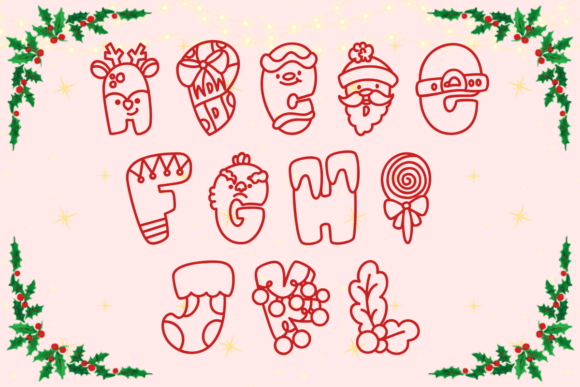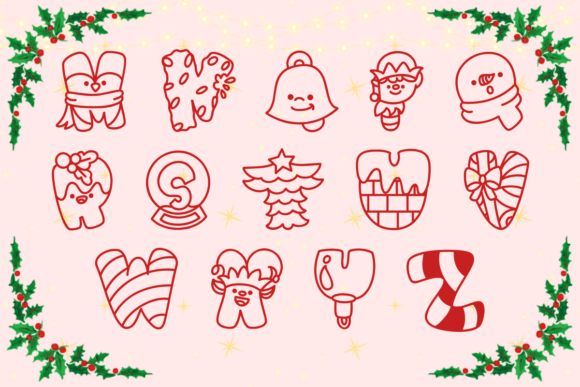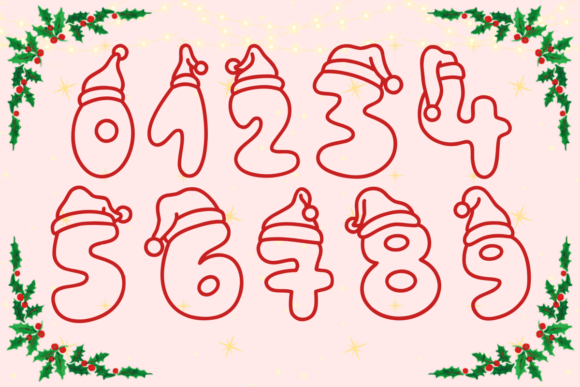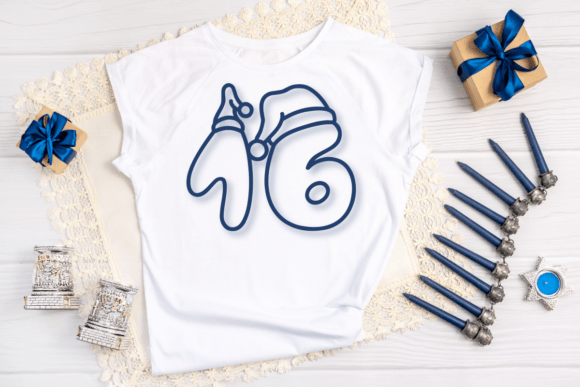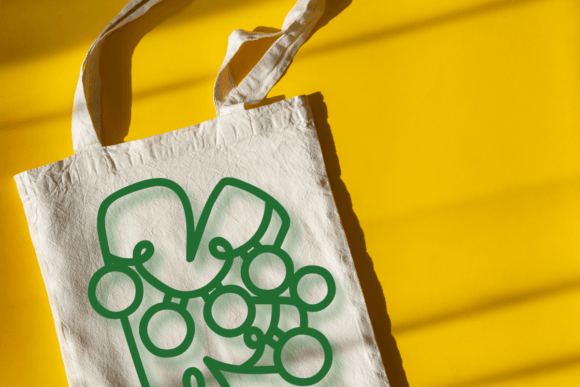
Bubble Christmas Font: Add a Touch of Whimsy to Your Holiday Projects
The holiday season is upon us, and with it comes the need for festive and fun designs that capture the spirit of Christmas. If you’re a designer, crafter, or DIY enthusiast looking for a unique and playful font to add to your holiday projects, look no further than the Bubble Christmas Font. In this article, we’ll dive into the world of Bubble Christmas, exploring its features, uses, and benefits, as well as provide tips and inspiration for incorporating it into your holiday designs.
What is Bubble Christmas Font?
Bubble Christmas Font is a whimsical and festive typeface designed specifically for the holiday season. Each character in this font is carefully crafted with cute Christmas elements, such as snowflakes, holly leaves, and bells, making it perfect for holiday-themed projects. The font’s playful and bubbly design is sure to evoke the joy and spirit of Christmas, adding a touch of magic to your designs.
Features of Bubble Christmas Font
So, what makes Bubble Christmas Font so special? Here are some of its key features:
- Whimsical design: Each character in the font is designed with cute Christmas elements, making it perfect for holiday-themed projects.
- Festive feel: The font’s playful and bubbly design is sure to evoke the joy and spirit of Christmas.
- Versatile: Bubble Christmas Font can be used for a variety of holiday projects, from sales flyers and posters to advertisements and social media graphics.
Uses for Bubble Christmas Font
Bubble Christmas Font is perfect for a wide range of holiday projects, including:
- Holiday sales flyers: Add a touch of whimsy to your sales flyers and posters with Bubble Christmas Font.
- Christmas posters: Create eye-catching posters that showcase your holiday promotions and events.
- Advertisements: Use Bubble Christmas Font to draw attention to your Christmas promotions and offers.
- Social media graphics: Add a festive touch to your social media graphics and posts with Bubble Christmas Font.
- Crafting projects: Use Bubble Christmas Font to add a personal touch to your holiday crafting projects, such as handmade cards and gift tags.
Tips for Using Bubble Christmas Font
Here are some tips for getting the most out of Bubble Christmas Font:
- Use it sparingly: While Bubble Christmas Font is festive and fun, it can be overwhelming if used too much. Use it sparingly to add a touch of whimsy to your designs.
- Pair it with other fonts: Pair Bubble Christmas Font with other fonts to create a unique and visually appealing design.
- Experiment with colors: Experiment with different colors and textures to add depth and interest to your designs.
- Have fun: Most importantly, have fun with Bubble Christmas Font! The font is designed to be playful and festive, so don’t be afraid to get creative and try new things.
Inspiration for Your Holiday Projects
Need some inspiration for your holiday projects? Here are a few ideas to get you started:
- Create a holiday party invitation: Use Bubble Christmas Font to create a festive and fun invitation for your holiday party.
- Design a Christmas sale flyer: Use Bubble Christmas Font to draw attention to your holiday promotions and offers.
- Make a handmade Christmas card: Use Bubble Christmas Font to add a personal touch to your handmade Christmas cards.
- Create a holiday social media campaign: Use Bubble Christmas Font to add a festive touch to your social media graphics and posts.
Bubble Christmas Font is a fun and festive typeface that’s perfect for adding a touch of whimsy to your holiday projects. With its playful design and versatile uses, it’s ideal for designers, crafters, and DIY enthusiasts looking to create unique and eye-catching holiday designs. Whether you’re creating holiday sales flyers, posters, advertisements, or social media graphics, Bubble Christmas Font is sure to bring a smile to your face and a touch of magic to your designs.